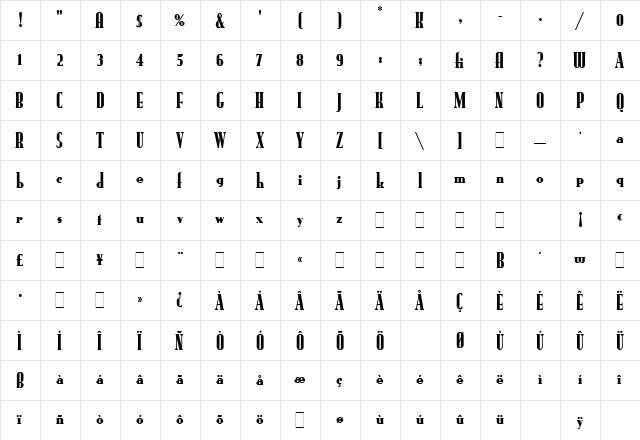
Rundfunk LET Plain
Design Context for Rundfunk LET Typeface
Rundfunk LET has an approachable, lighthearted character — its loose, expressive forms are well-suited to children's content, casual branding, and fun-first design.
Well-suited to food and beverage brands with personality, educational materials, and fun-forward identities.
Font Pairing: Pairs well with a rounded or humanist sans for body copy, maintaining the friendly tone without relying on Rundfunk LET to carry extended reading.
Pro Tip: Use Rundfunk LET at larger display sizes where its expressive character can land. Pair with a clean, simple sans for body copy to maintain readability.